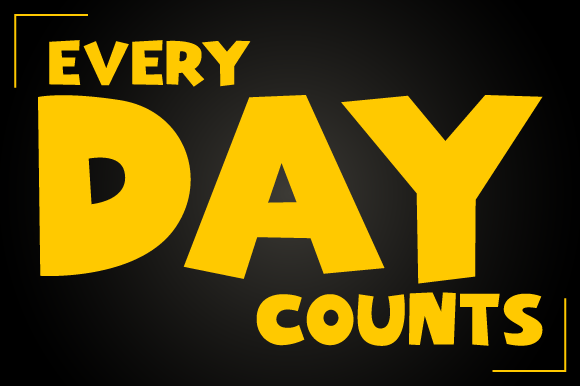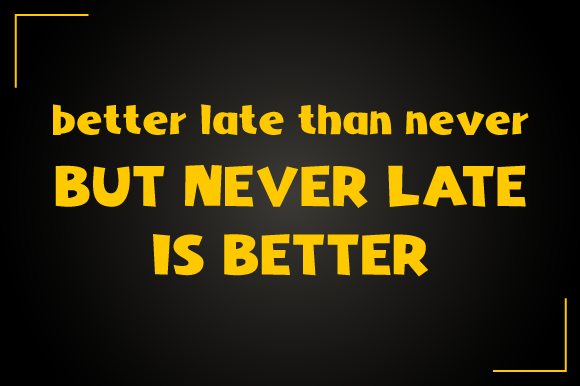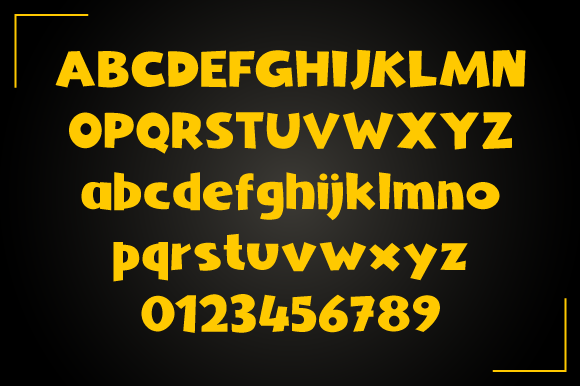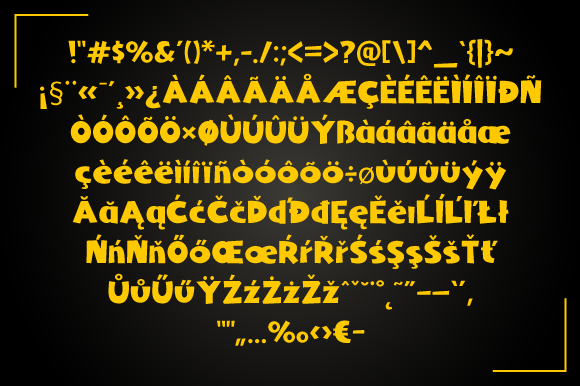
Introducing Attendance Font: The Bold and Playful Choice for Creative Projects
Are you tired of using the same old fonts for your logos, t-shirts, branding, and other projects? Look no further than Attendance Font, a bold and playful font that’s perfect for designers and crafters looking to add a touch of personality to their work. In this article, we’ll take a closer look at Attendance Font, its features, and how it can be used to elevate your creative projects.
What is Attendance Font?
Attendance Font is a unique and eye-catching font that’s designed to make a statement. With its bold and playful style, it’s perfect for projects that require a bit of fun and personality. Whether you’re creating a logo, t-shirt design, or branding materials, Attendance Font is sure to grab attention and leave a lasting impression.
Key Features of Attendance Font
• Bold and Playful Style: Attendance Font features a bold and playful style that’s perfect for making a statement.
• Versatile: This font can be used for a wide range of projects, including logos, t-shirts, branding, and more.
• Easily Readable: Despite its bold style, Attendance Font is easily readable, making it perfect for use in a variety of contexts.
• Unique and Eye-Catching: With its unique and eye-catching design, Attendance Font is sure to grab attention and set your project apart from the rest.
How to Use Attendance Font in Your Projects
Attendance Font is incredibly versatile and can be used in a wide range of projects. Here are a few ideas to get you started:
• Logos: Use Attendance Font to create a bold and eye-catching logo that’s sure to grab attention.
• T-Shirt Designs: Add a touch of personality to your t-shirt designs with Attendance Font.
• Branding: Use Attendance Font to create a consistent brand identity that’s bold and playful.
• Signs and Posters: Attendance Font is perfect for use in signs and posters, where its bold style is sure to grab attention.
Why Choose Attendance Font?
So why choose Attendance Font for your next project? Here are a few reasons:
• Unique Style: Attendance Font features a unique and eye-catching style that’s sure to set your project apart.
• Easy to Read: Despite its bold style, Attendance Font is easily readable, making it perfect for use in a variety of contexts.
• Versatile: This font can be used for a wide range of projects, making it a great addition to any designer’s toolkit.
• High-Quality: Attendance Font is a high-quality font that’s designed to deliver exceptional results.
Tips for Using Attendance Font Effectively
Here are a few tips for using Attendance Font effectively in your projects:
• Use it Sparingly: Attendance Font is a bold font, so use it sparingly to avoid overwhelming your design.
• Pair it with Other Fonts: Attendance Font pairs well with other fonts, so don’t be afraid to experiment with different combinations.
• Experiment with Colors: Attendance Font looks great in a variety of colors, so experiment with different options to find the one that works best for your project.
Font Name Attendance Font
Author TanveerType
Attendance Font is a bold and playful font that’s perfect for designers and crafters looking to add a touch of personality to their work. With its unique style, versatility, and ease of use, it’s a great addition to any designer’s toolkit. Whether you’re creating a logo, t-shirt design, or branding materials, Attendance Font is sure to grab attention and leave a lasting impression.